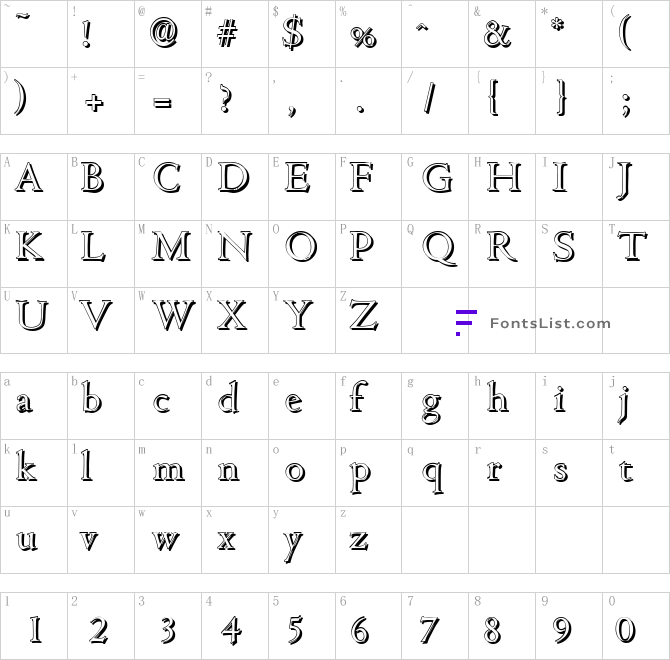
CambridgeShadow-Light-Regular.ttf is a very beautiful artistic font, CambridgeShadow-Light-Regular.ttf is widely used in the design and printing of various books and pictures,CambridgeShadow-Light-Regular.ttf has a strong visual impact,CambridgeShadow-Light-Regular.ttf is a commonly used font in newspapers, magazines and books, and is used in posters, e-commerce Poster design, store design, logo design, font design and other fields.CambridgeShadow-Light-Regular.